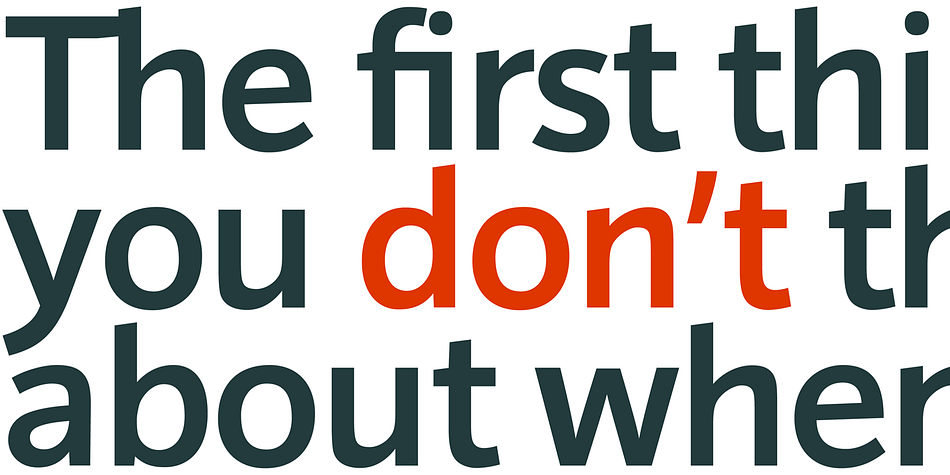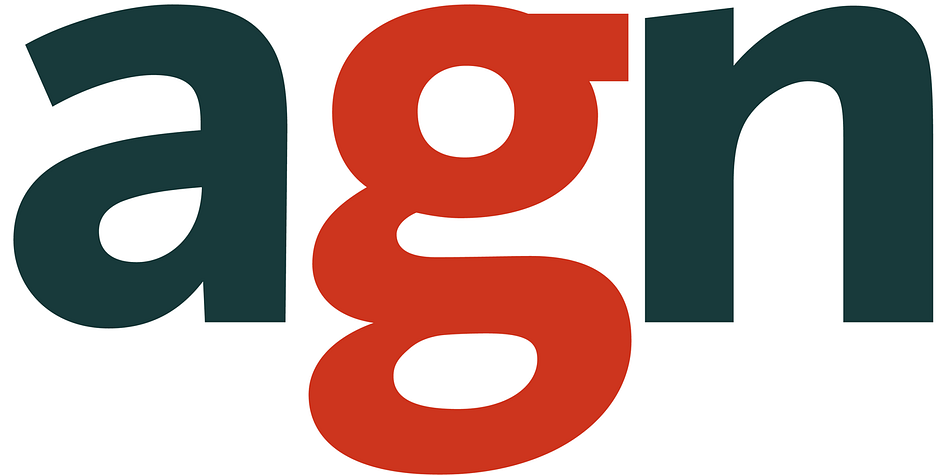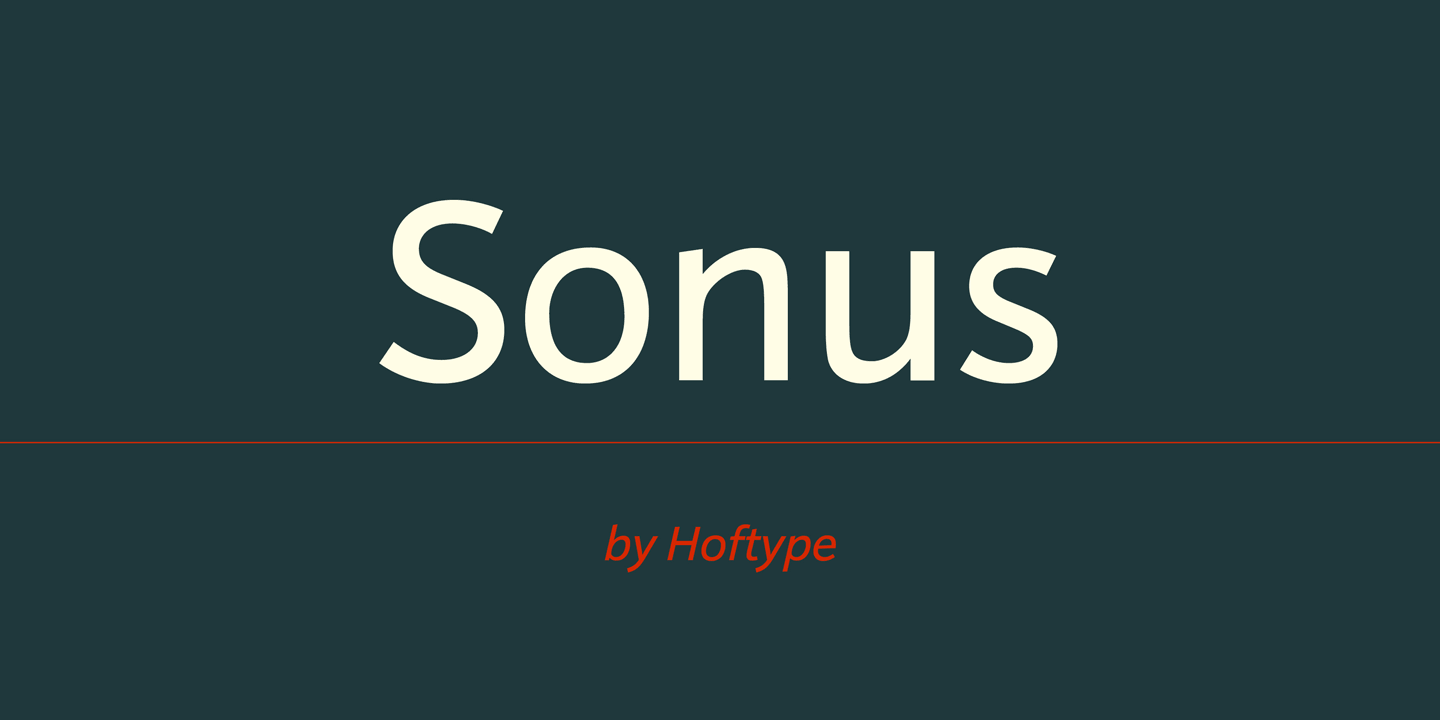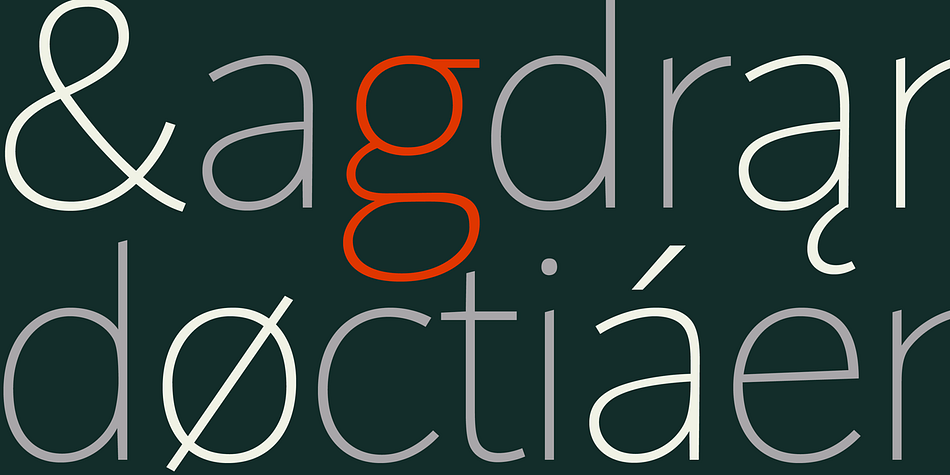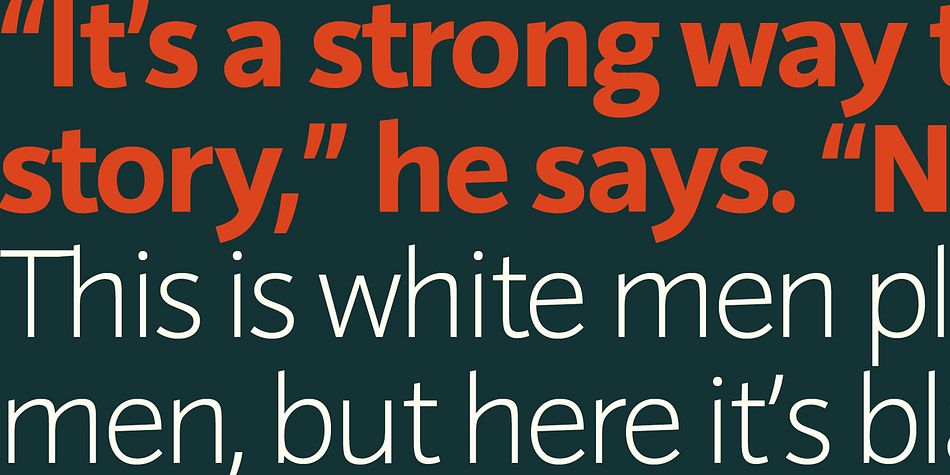
Sonus is a sans serif font family. This typeface has sixteen styles and was published by Hoftype.
Sonus – a new monoline family with dynamic-flow drive. Influenced by early English sans serifs - Powerful and energetic but with some classical features. Its firm structure makes it great for text and demonstrates its lively linearity in displays.
Sonus comes in 16 styles, in OpenType format and with extended language support. All weights contain standard ligatures, proportional lining figures, tabular lining figures, proportional old style figures, lining old style figures, matching currency symbols, fraction- and scientific numerals and arrows.